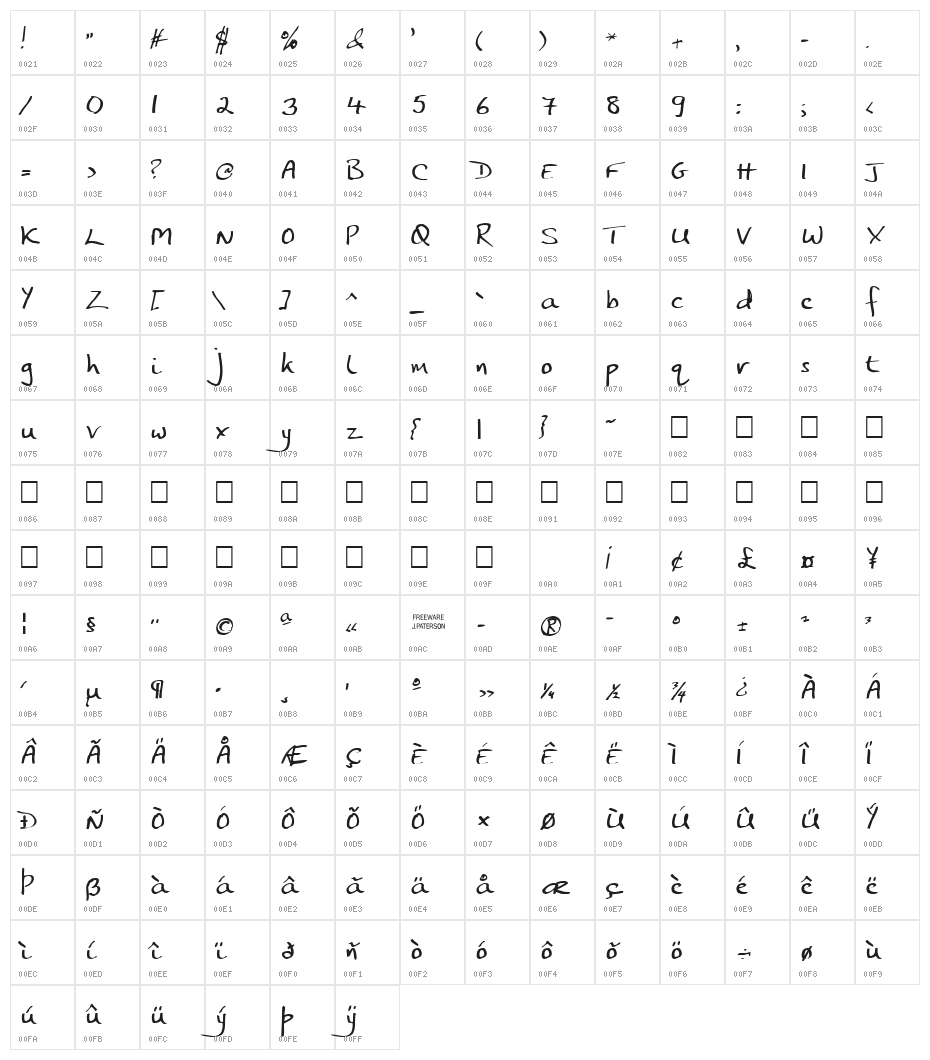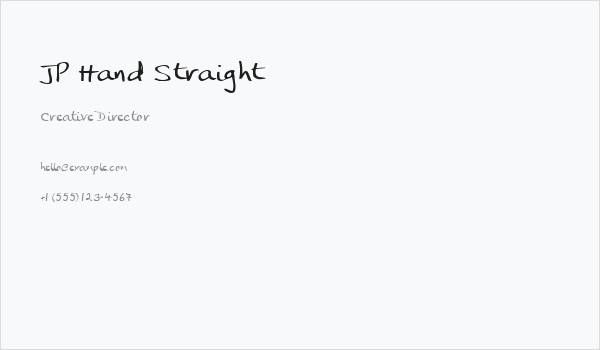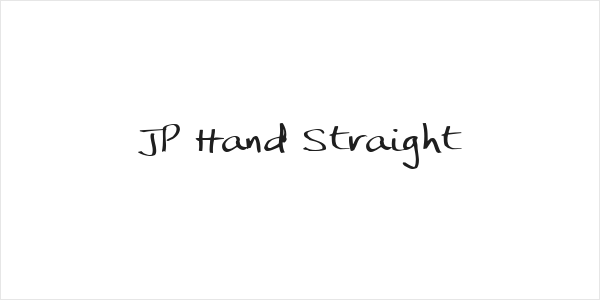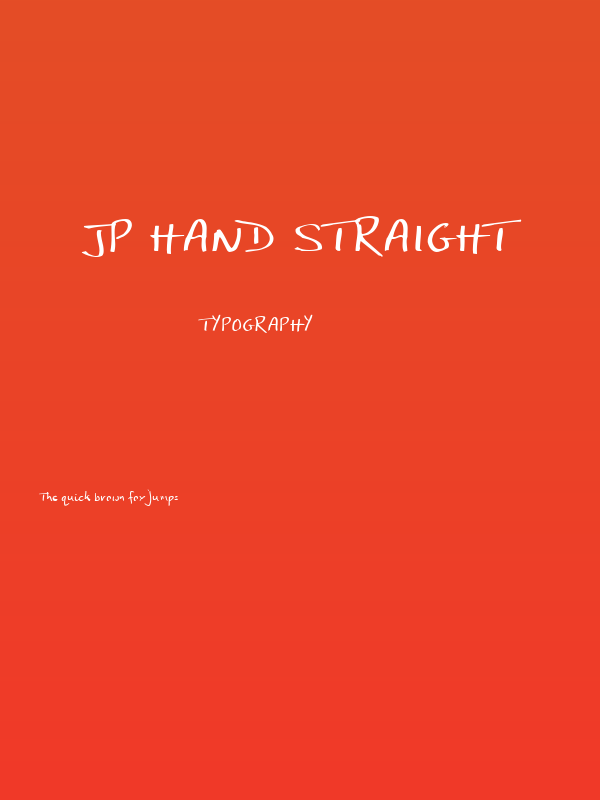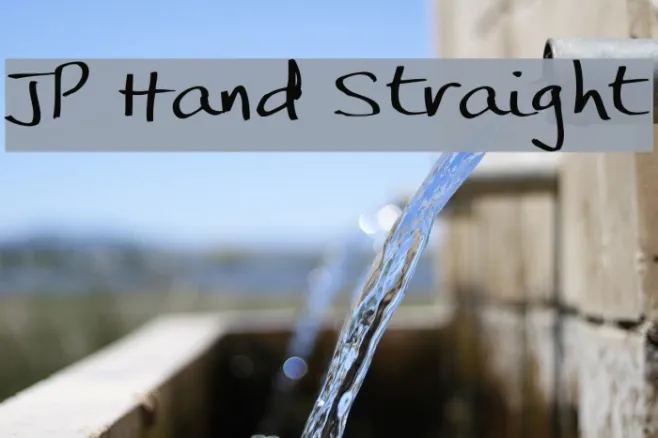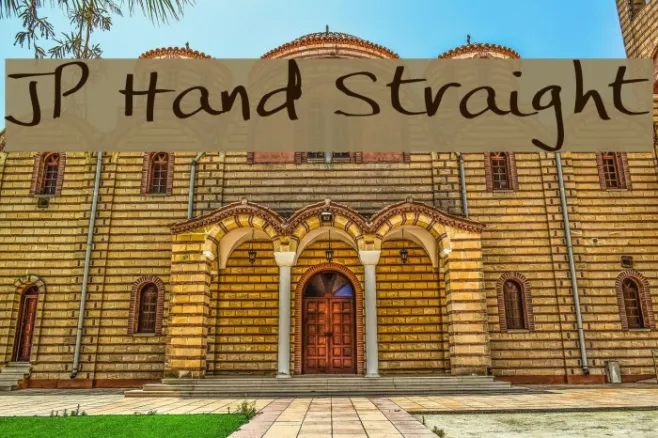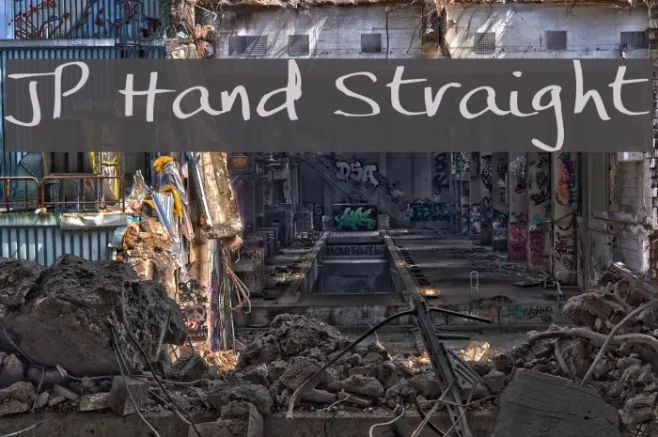
JP Hand Straight Font
JP Hand Straight Description
This font features a handwritten style with a casual and organic feel. The letters are slightly irregular, giving it a personal and authentic touch. The strokes vary in thickness, adding a dynamic and lively appearance. The uppercase letters are bold and prominent, while the lowercase letters maintain a consistent flow. Numbers and special characters are crafted with the same playful and informal style, making the font versatile for various creative projects.
| Overall Style | Casual, Organic |
| Proposed Projects | Ideal for personal notes, greeting cards, creative posters, and informal branding. |